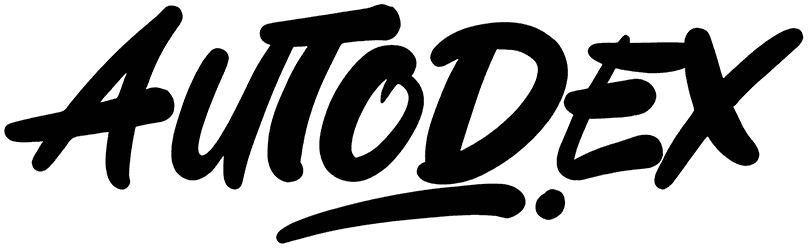
Autodex Font
What you need to adorn your modern design is an urban letterform like this brush font that can advance your words. This soft script font can be used for many projects, from posters to t-shirts. Autodex doesn’t support lowercase letters, but you can count on it for your creative idea and show off your innovative mind.